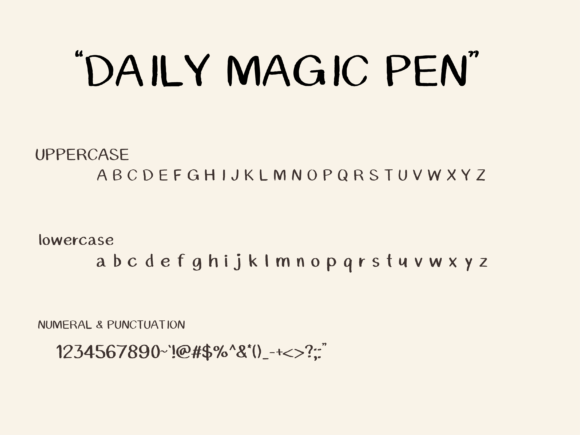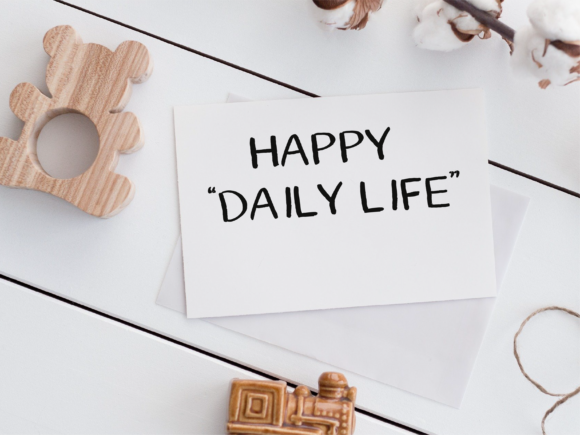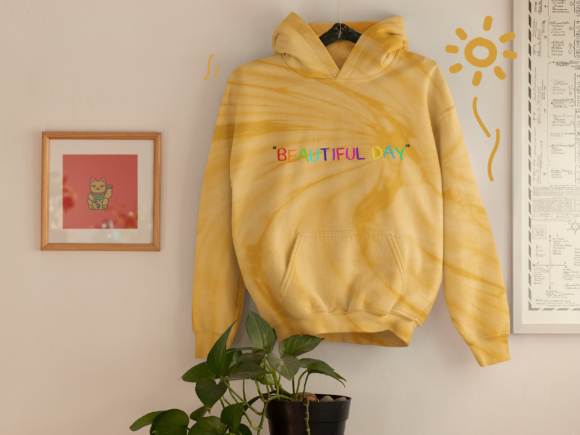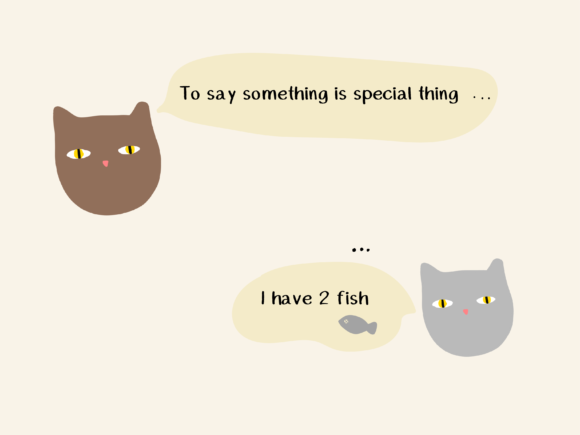
The Daily Magic Pen Font: A Designer’s New Best Friend
I’ll never forget the time I was working on a project for a client who wanted a font that felt “handwritten” and “personal.” I scoured the internet, trying out font after font, but nothing seemed quite right. That was until I stumbled upon the Daily Magic Pen font. Its unique, simple handwritten style immediately caught my eye, and I knew I had found the perfect fit. In this article, I’ll share my experience with the Daily Magic Pen font, and show you how to make the most of its features.
So, what do I love about the Daily Magic Pen font? Here are a few things that make it stand out:
- ✨ Unique and simple handwritten style: The Daily Magic Pen font has a one-of-a-kind look that’s both cute and relaxed.
- ✅ Authentic feel: This font has a real, handwritten feel that adds a personal touch to any design.
- ✅ Ease of use: The font is easy to read and works well in a variety of design contexts.
Of course, no font is perfect, and there are a few quirks to be aware of:
- 🤔 Limited character set: While the font has a wide range of characters, it’s not a full Unicode font, so you may encounter some limitations when using certain special characters.
- ⚠️ Not suitable for body text: While the font is easy to read, it’s best used for headings, titles, and short paragraphs, rather than long blocks of text.
The Story Behind Daily Magic Pen
The Daily Magic Pen font was created with the intention of capturing the feeling of writing with a pen. The designer wanted to create a font that felt personal, relaxed, and authentic. The result is a font that’s perfect for designs that need a human touch.
| Font Name | Daily Magic Pen Font |
| Author | Apollo no.64 |
| What is the Daily Magic Pen font best used for? | The Daily Magic Pen font is best used for headings, titles, and short paragraphs, where a personal and relaxed feel is desired. |
| Is the Daily Magic Pen font suitable for body text? | No, the Daily Magic Pen font is not suitable for body text, as it’s best used for shorter blocks of text. |